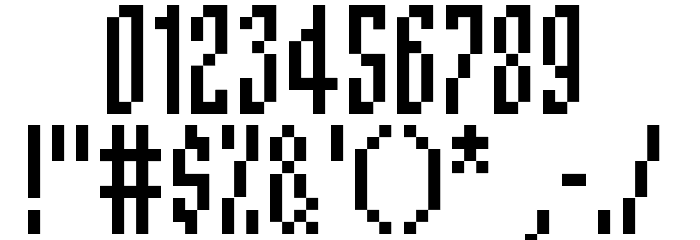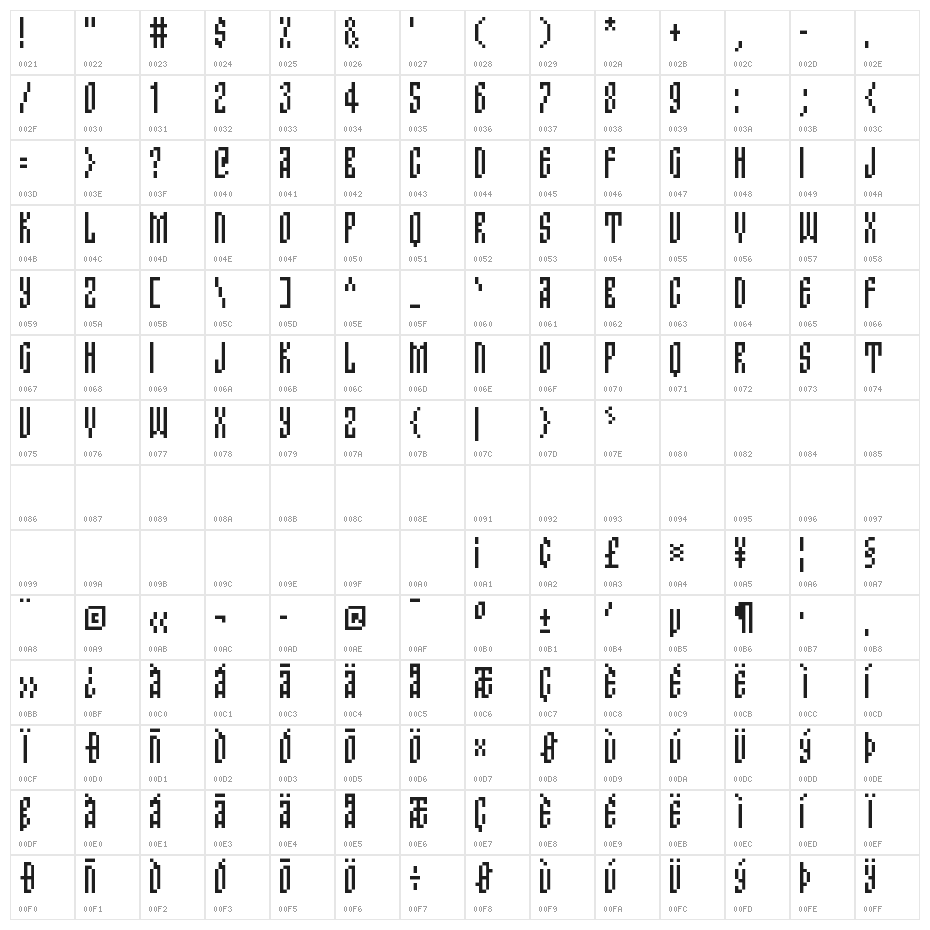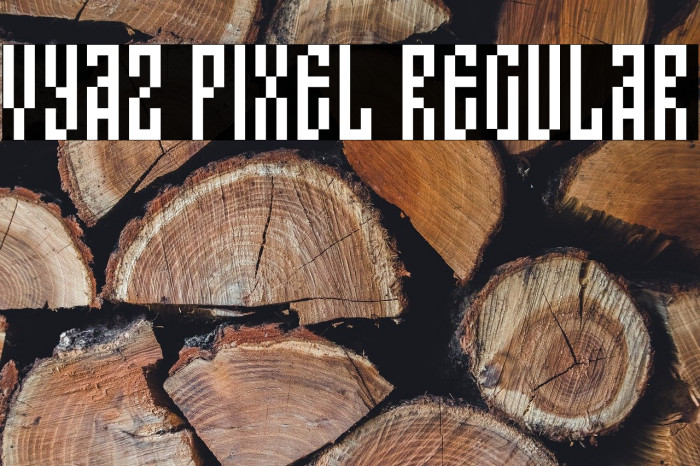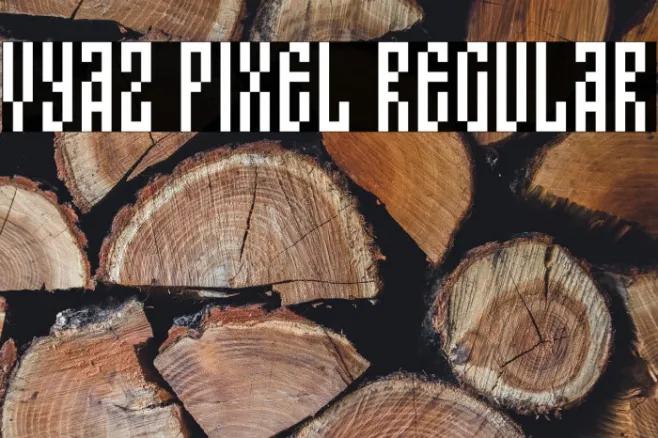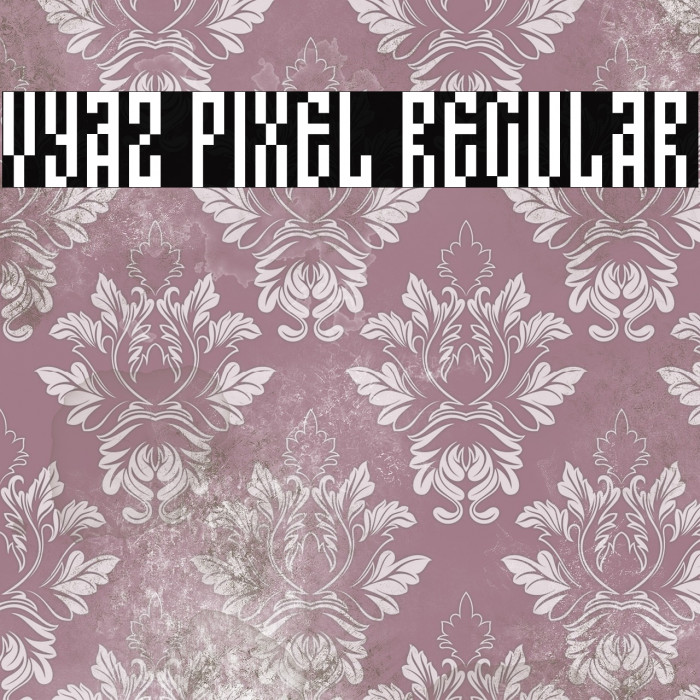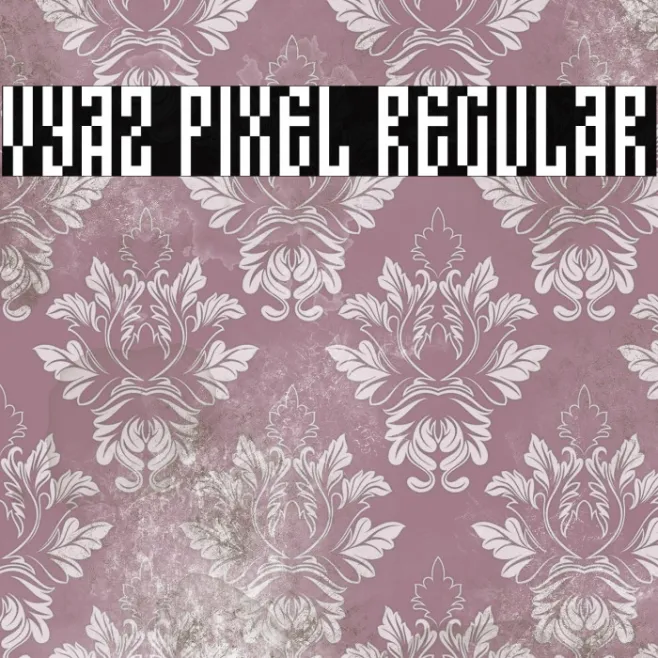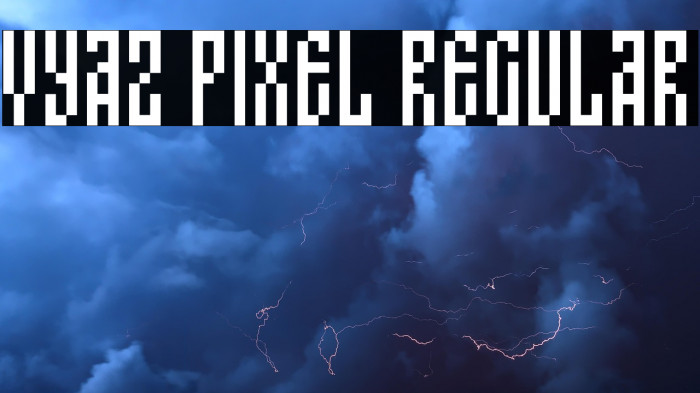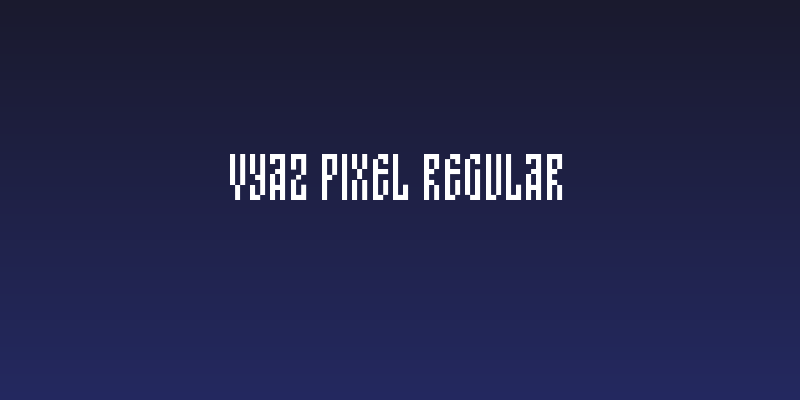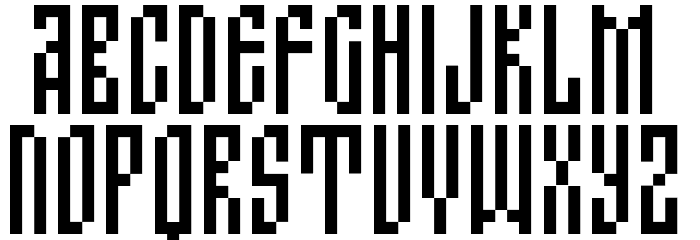
Vyaz Pixel Regular Font
Vyaz Pixel Regular Description
This font features a pixelated, blocky design reminiscent of early digital displays and retro video games. Each character is constructed with a grid-like precision, giving it a distinctly digital and geometric appearance. The uppercase and lowercase letters maintain a consistent height, contributing to a uniform look. Numbers and special characters follow the same pixelated style, ensuring cohesion across all elements. The font's design is straightforward, with no curves or embellishments, emphasizing its retro and minimalist aesthetic.